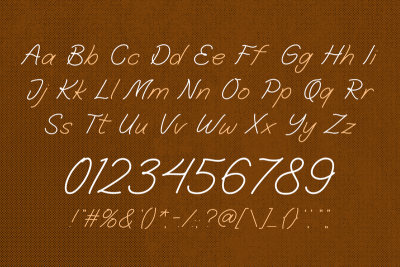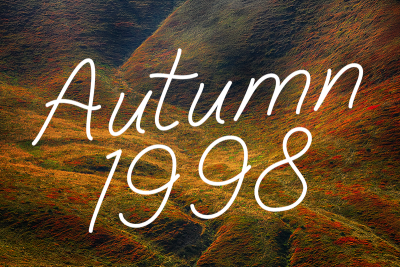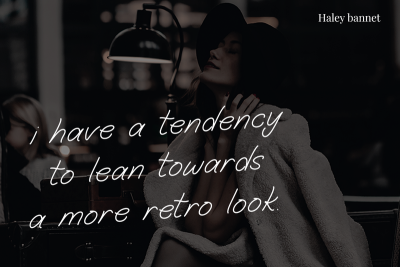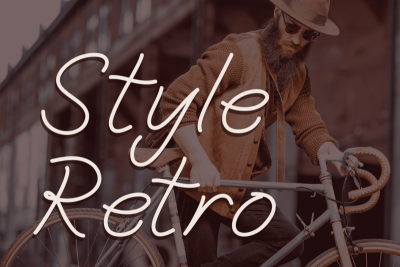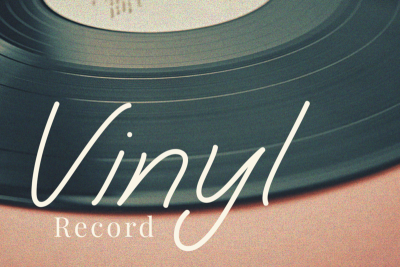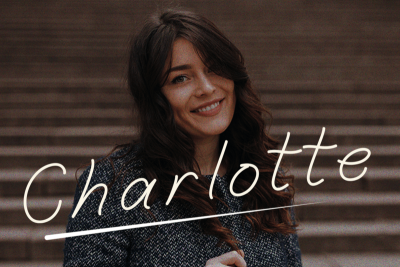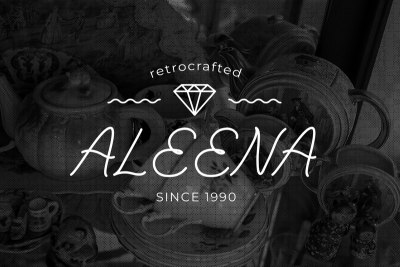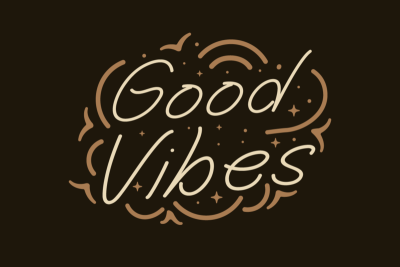
Handwriting font Soeraja is an elegant and flowing script typeface designed to bring a natural and personal touch to your projects. With its delicate curves and smooth strokes, this font mimics the fluidity of real handwriting, making it perfect for designs that need a refined and sophisticated feel. Moreover, its stylish letterforms create a harmonious balance between casual elegance and artistic expression, making it suitable for both modern and classic designs.
Additionally, Soeraja stands out due to its graceful yet highly legible letterforms. The soft, handwritten strokes give it a natural charm, ensuring that every design feels warm and inviting. Because of its organic flow, it works well for branding, wedding invitations, and editorial designs. Furthermore, its versatility allows it to adapt seamlessly across digital and print media. Whether youโre crafting a personal message, designing a stylish logo, or working on a creative project, this font adds a timeless and artistic flair.
Handwriting Font Soeraja Perfect For
Soeraja is ideal for designers, businesses, and creatives looking for a stylish script font that feels personal and elegant. Specifically, it works best in the following applications:
- Wedding Invitations and Event Stationery: For example, use it for wedding invitations, RSVP cards, or elegant party stationery. Its graceful strokes add a sophisticated and romantic touch.
- Branding and Logo Design: Similarly, it is perfect for high-end brands, fashion labels, and boutique businesses. Since the font has a handwritten luxury appeal, it creates a strong and stylish identity.
- Personalized Letters and Greeting Cards: In particular, apply it to handwritten notes, thank-you cards, or digital calligraphy projects. The flowing letterforms make every message feel heartfelt and personal.
- Editorial and Magazine Designs: Additionally, use it for elegant headlines, pull quotes, or stylish article layouts. Because of its soft and artistic strokes, it enhances the visual appeal of editorial work.
- Social Media Graphics and Influencer Branding: Likewise, apply it to Instagram posts, aesthetic branding, and content creation for lifestyle bloggers. The handwritten script creates a sophisticated and visually appealing presence.
- Luxury Packaging and Product Labels: Furthermore, it works well for perfume brands, skincare products, or artisanal goods. The fontโs elegant flow enhances the perception of quality and craftsmanship.
- Handwritten Quotes and Calligraphy Designs: Finally, it is excellent for posters, typography artwork, or inspirational quote designs. The soft yet bold strokes make every word look poetic and meaningful.
Overall, Handwriting font Soeraja is the perfect choice for projects that need an elegant, flowing, and natural script style. Thanks to its soft curves and stylish character, it enhances everything from branding to social media content. Whether you’re designing invitations, editorial layouts, or personal projects, this font ensures a graceful and refined aesthetic.